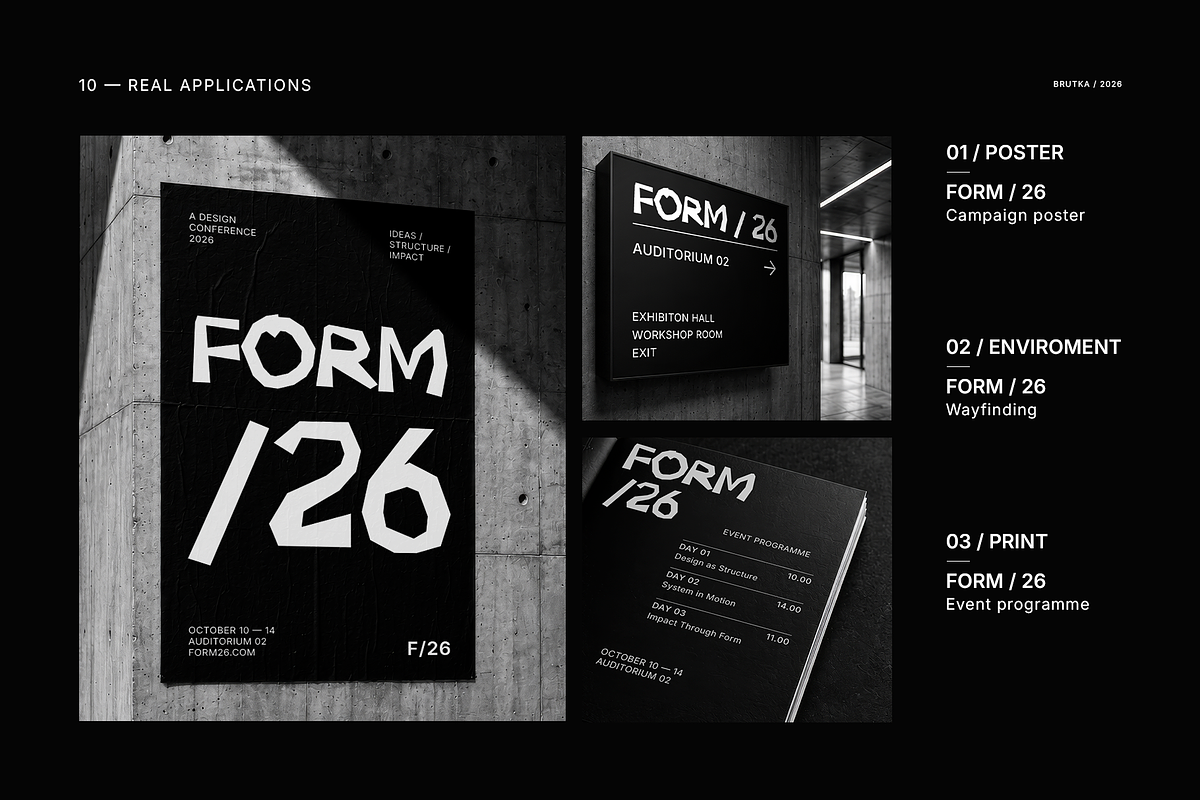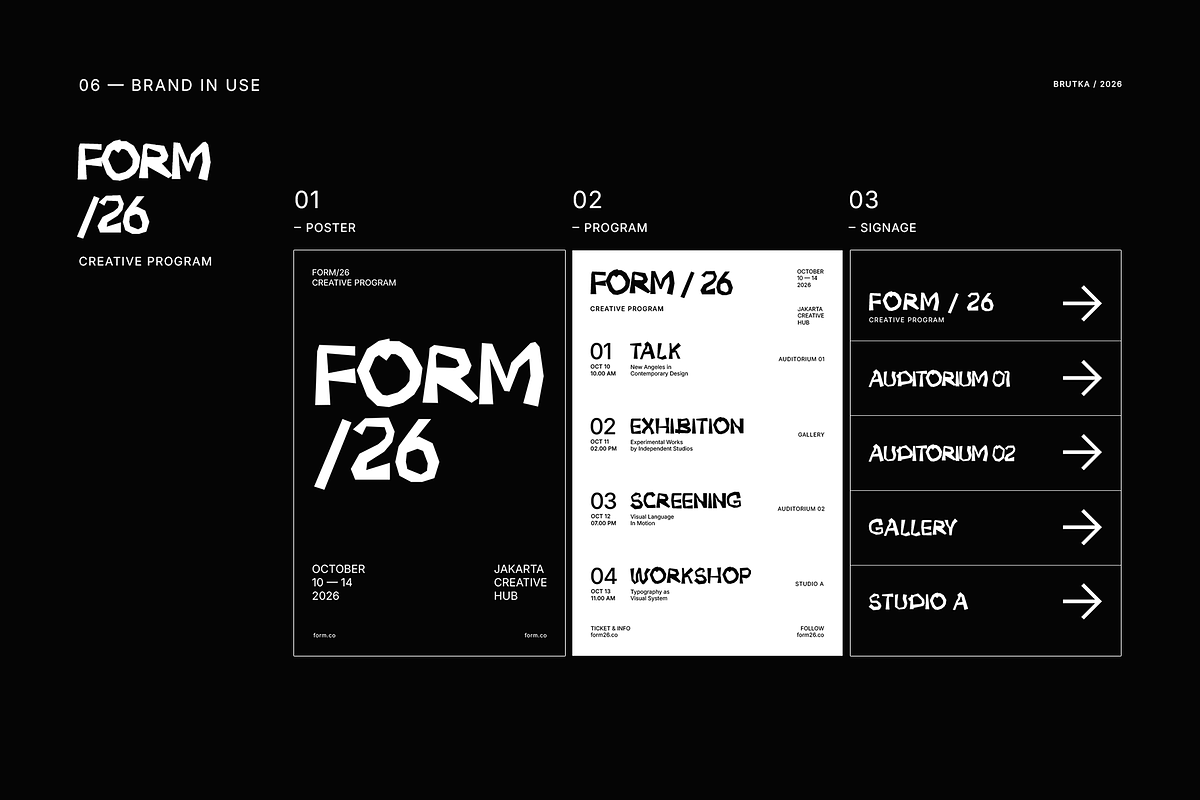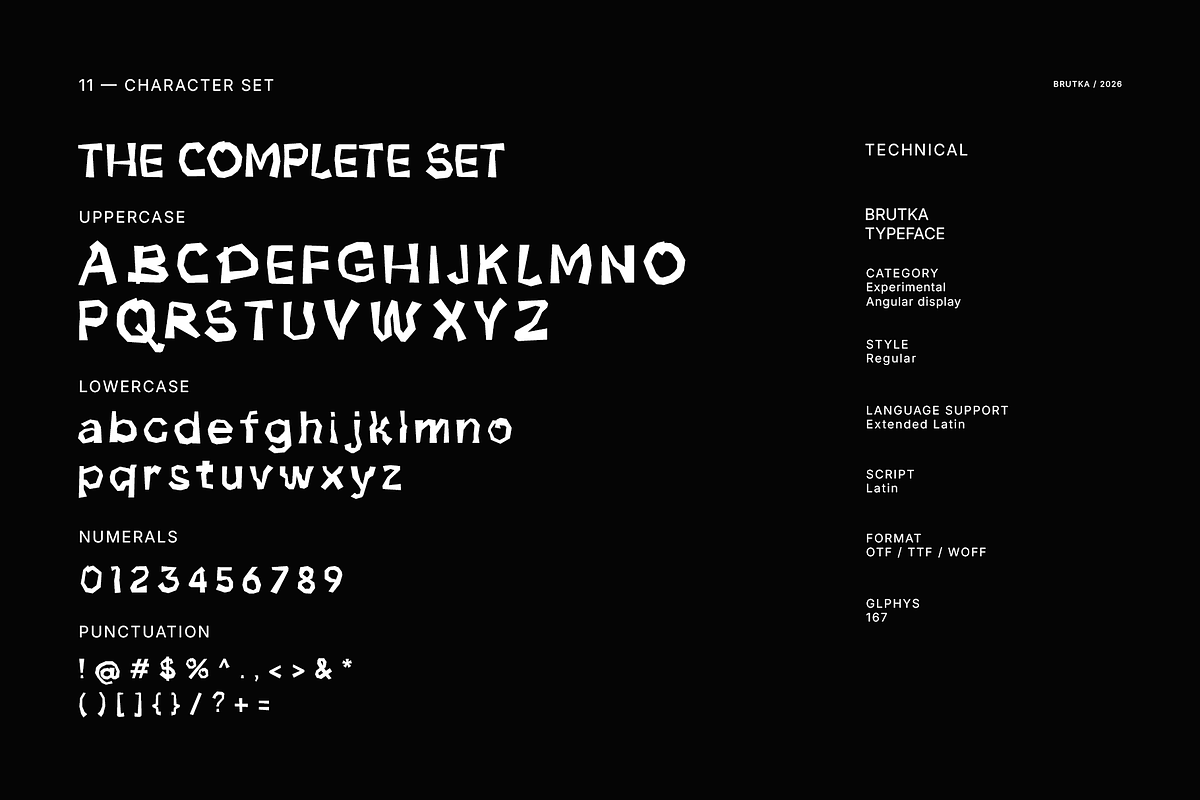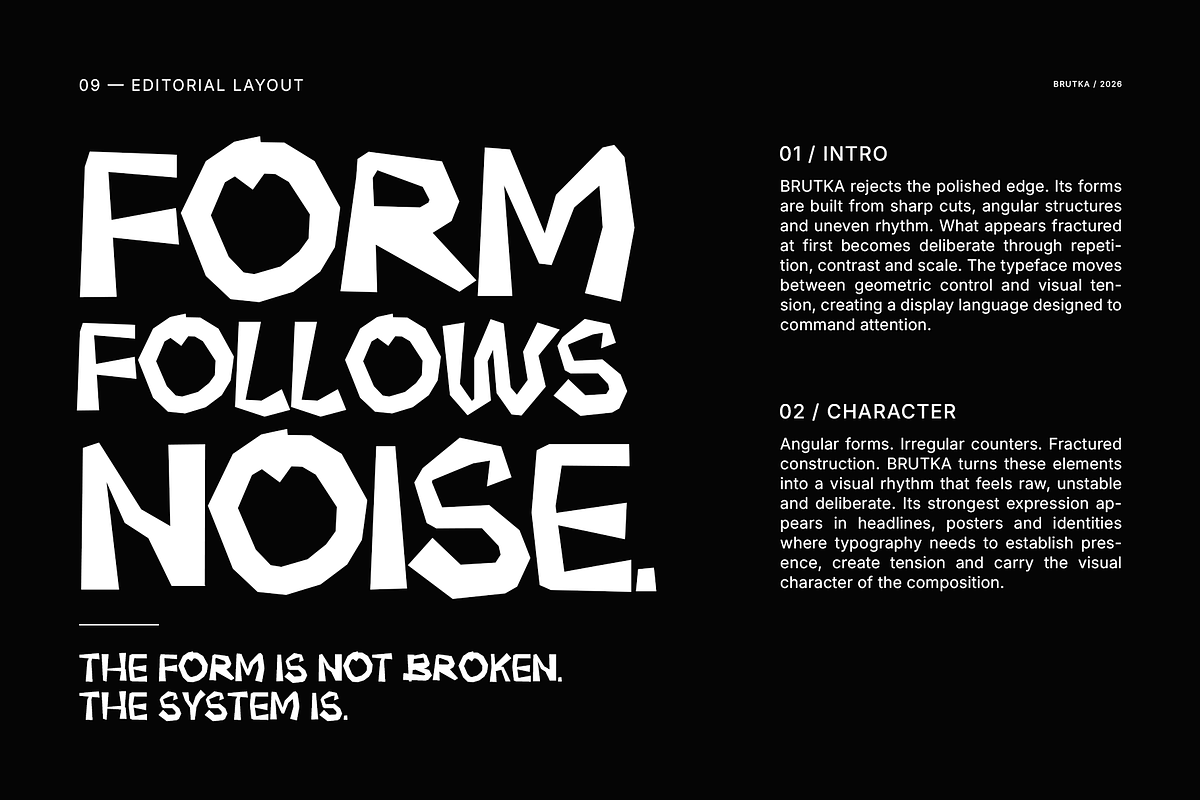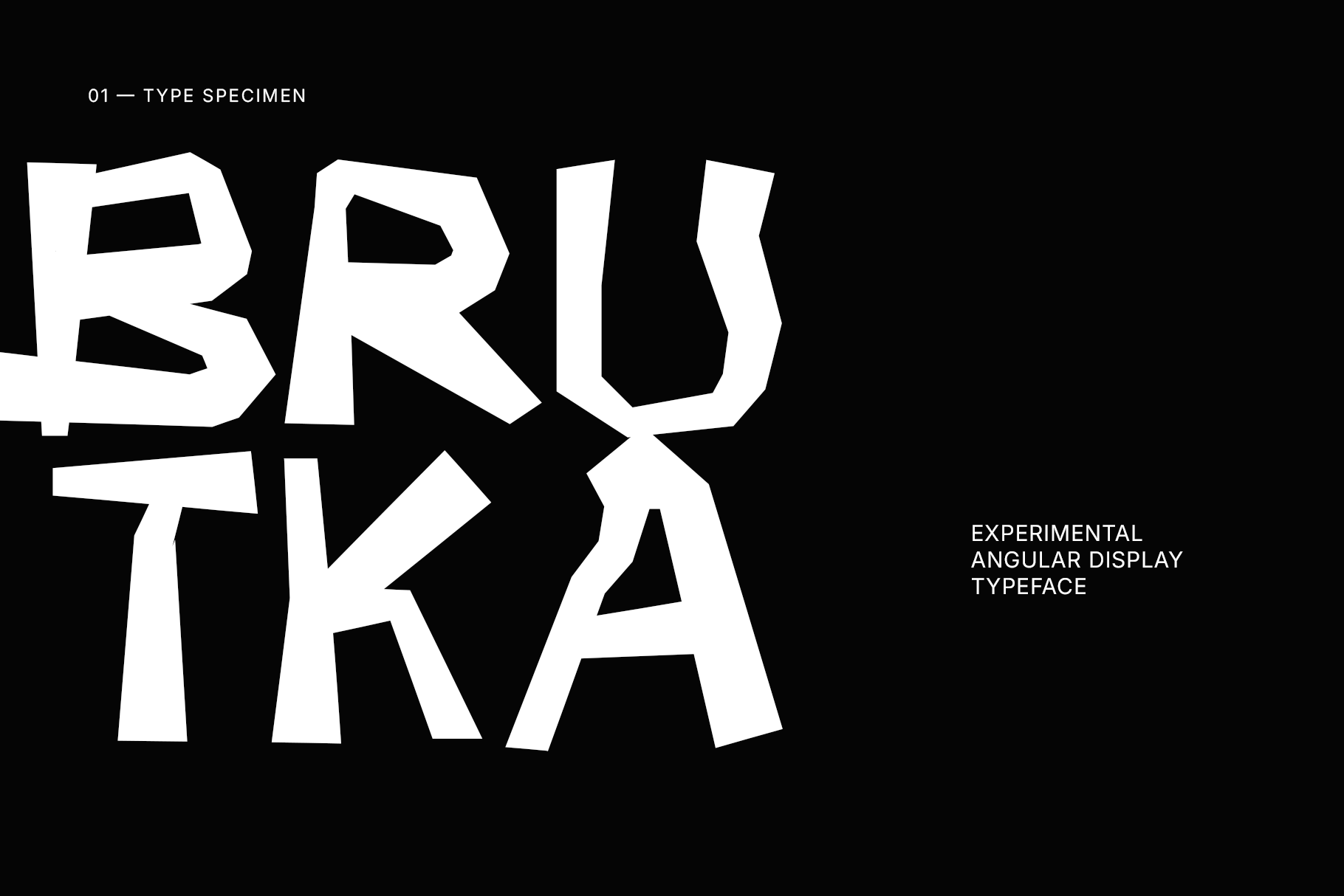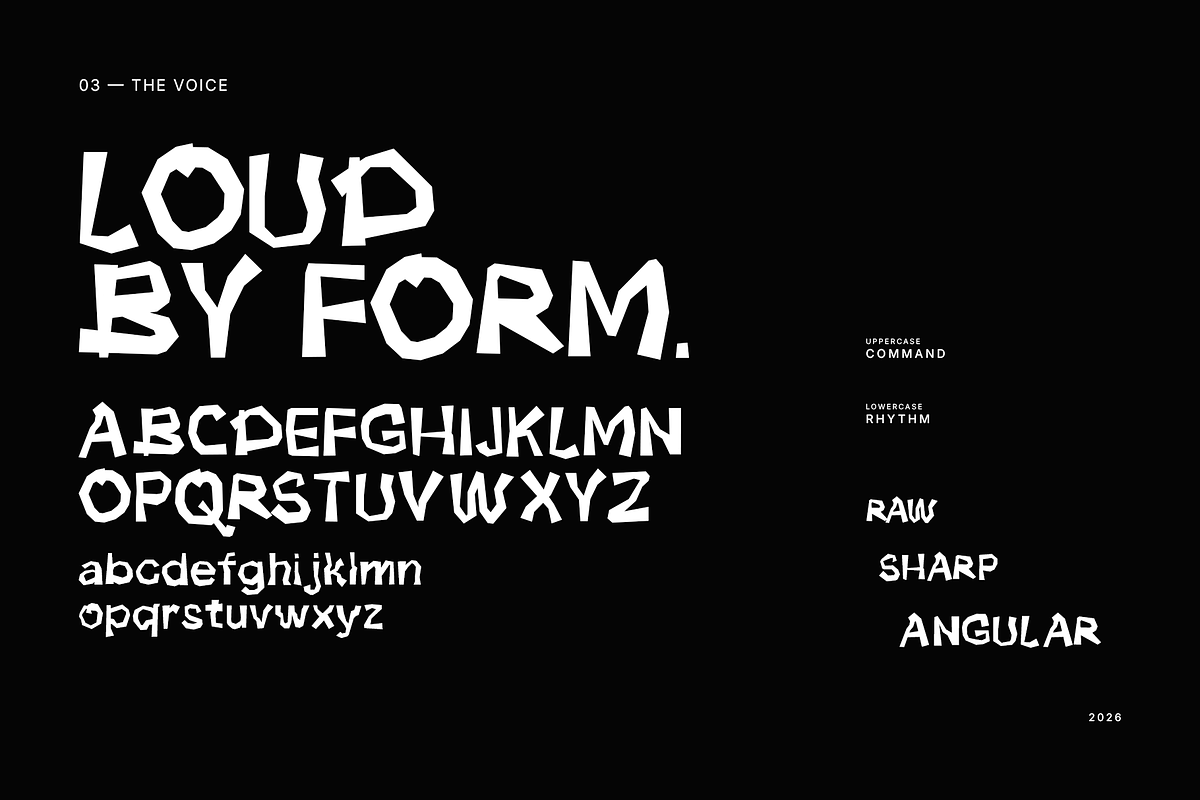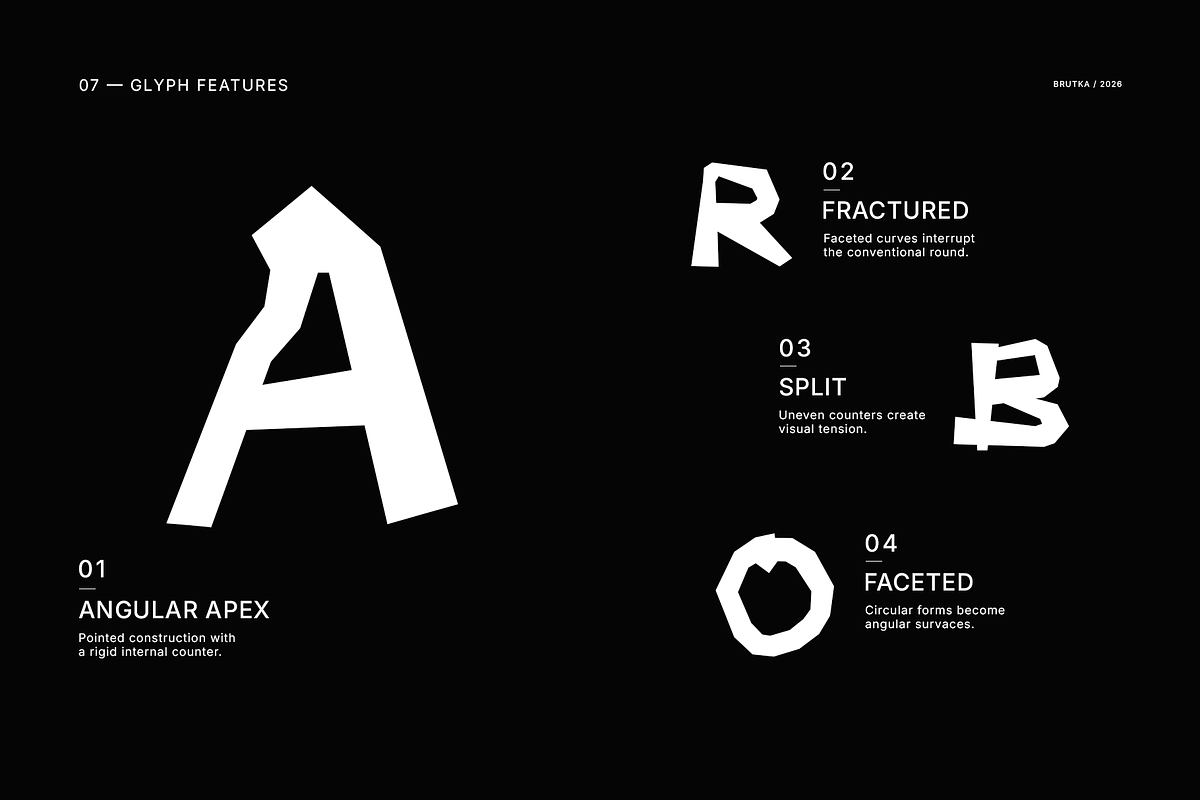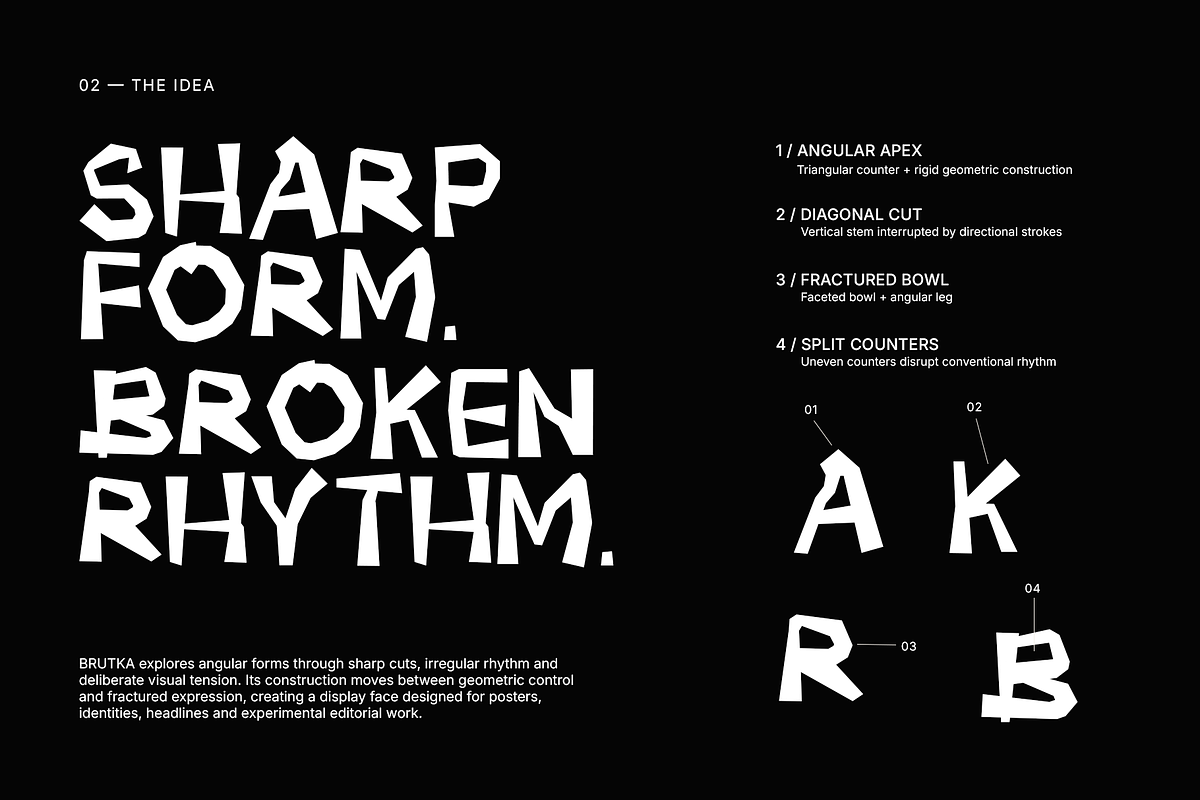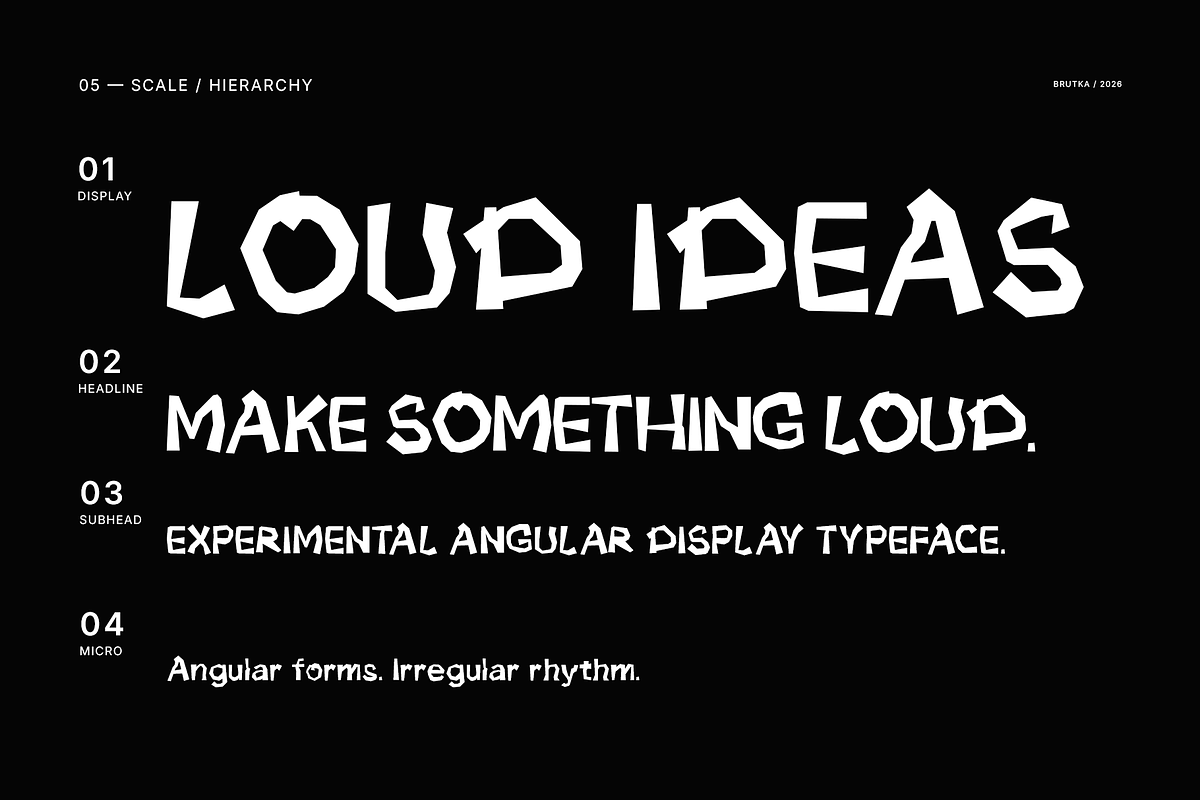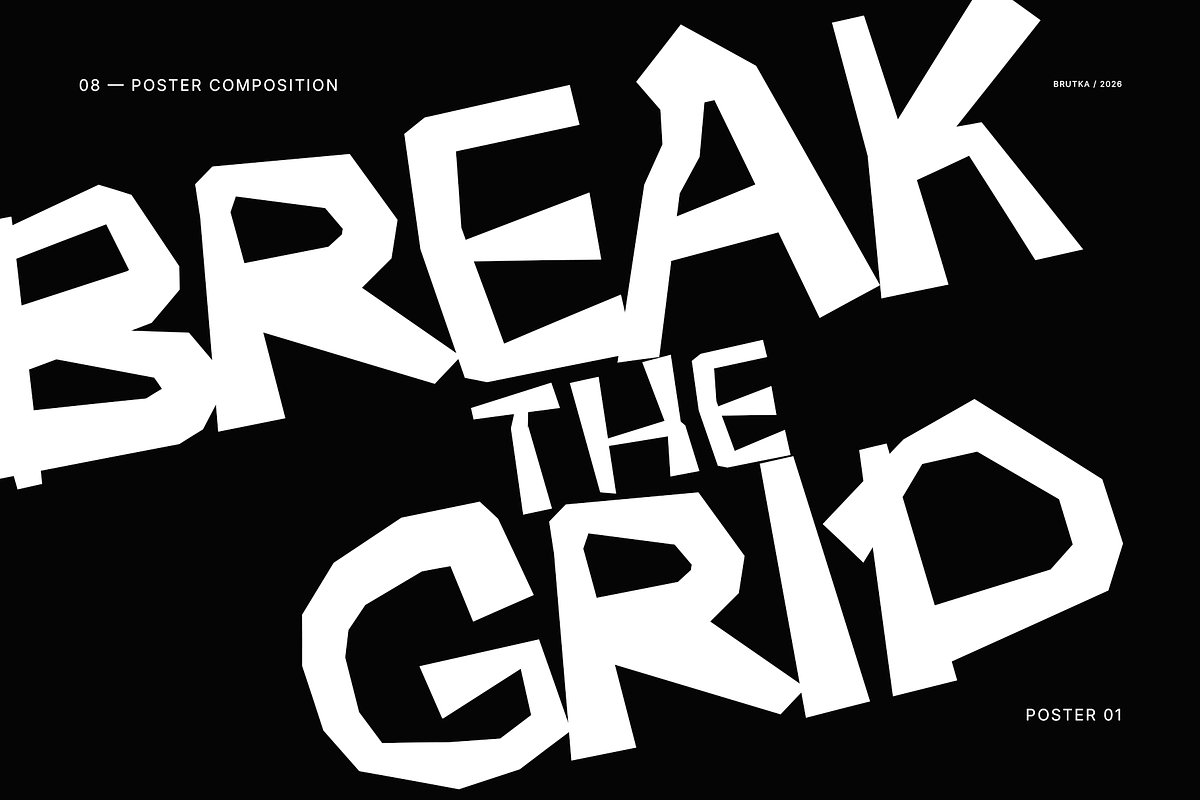
BRUTKA - Experimental Display Font
BRUTKA is an experimental angular display font built around sharp cuts, fractured forms, and irregular geometric rhythm.
Designed to make typography an active part of the composition, BRUTKA brings a raw, unconventional voice to posters, headlines, branding, editorial layouts, campaigns, signage, and other display applications.
Its angular construction moves between geometric control and deliberate visual tension, creating distinctive forms that work especially well at large sizes.
- Experimental angular display style
- Sharp and fractured letterforms
- Irregular geometric rhythm
- Numerals and punctuation
- Extended Latin character support
- 167 glyphs
- Regular style
Best suited for
- Posters, headlines, brand identities, editorial design, campaigns, signage, packaging, titles, and experimental graphic design.
Language support
- Extended Latin character set.